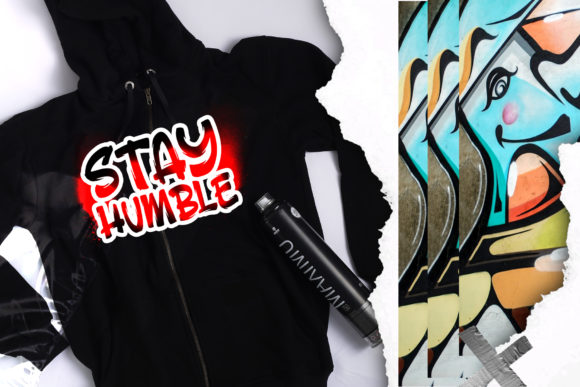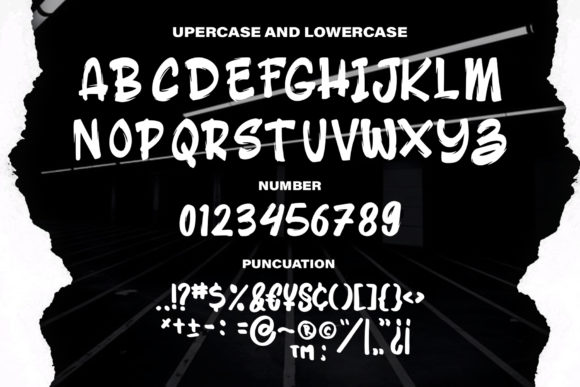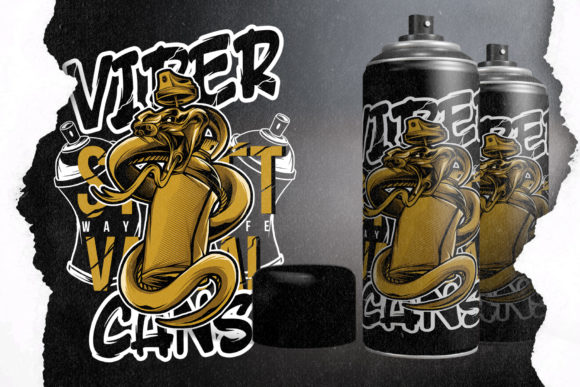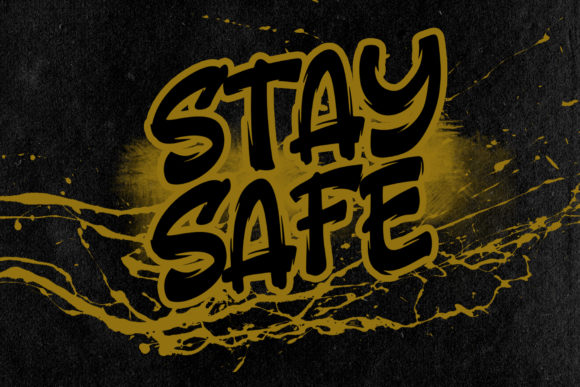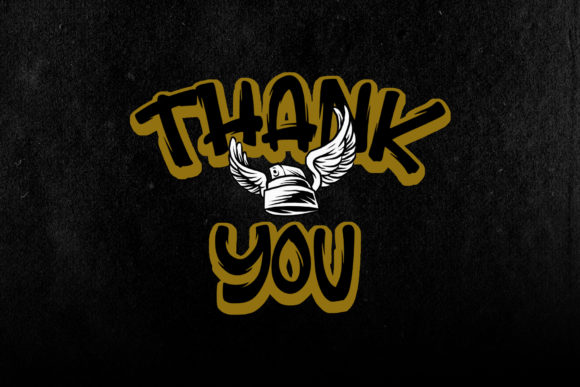
Introduction to Grav Boom Font
Grav Boom is a unique and interesting display font.
A little bit quirky, this font will fit a wide pool of designs Fall in love with its incredibly stylish look and use it to create spectacular designs.